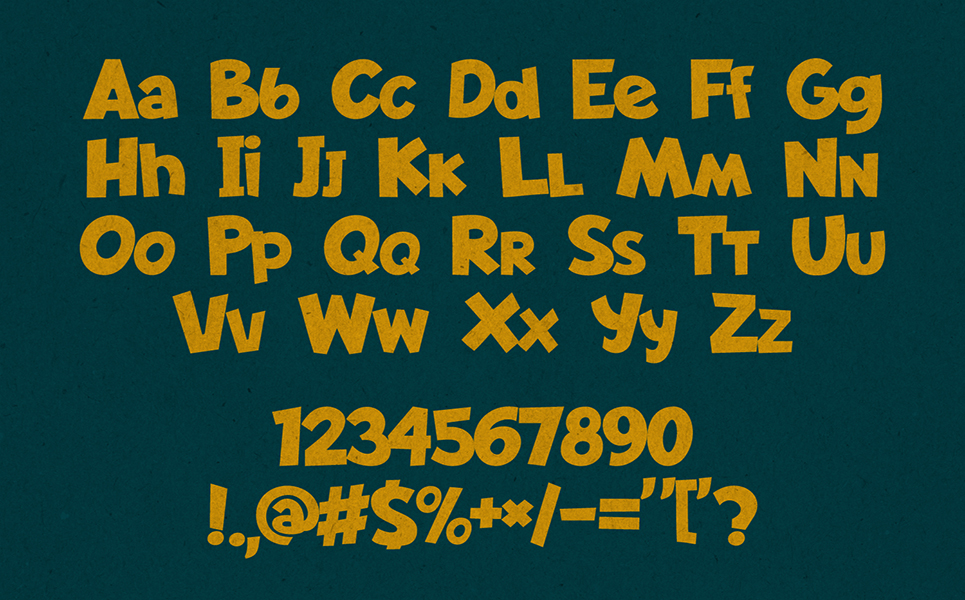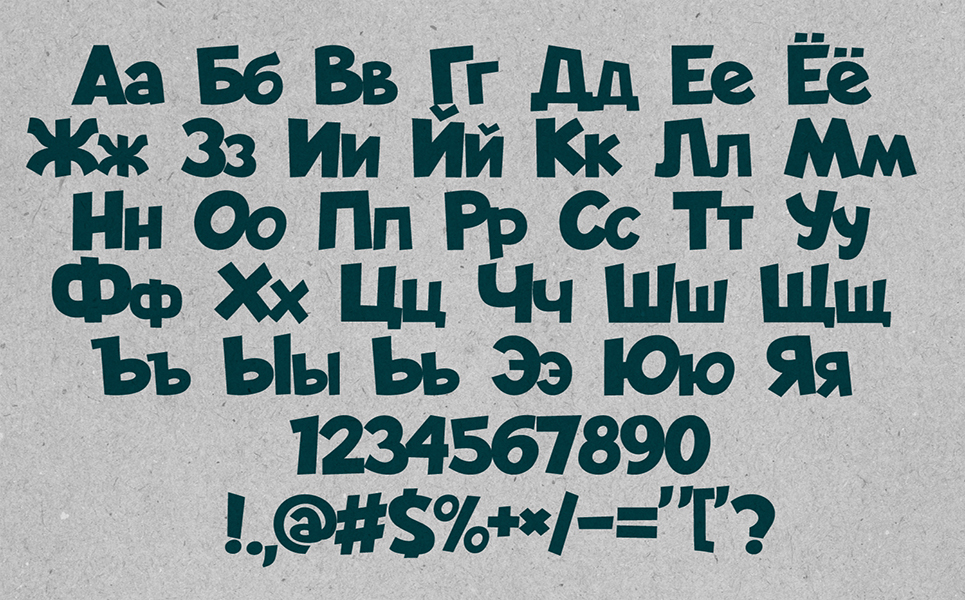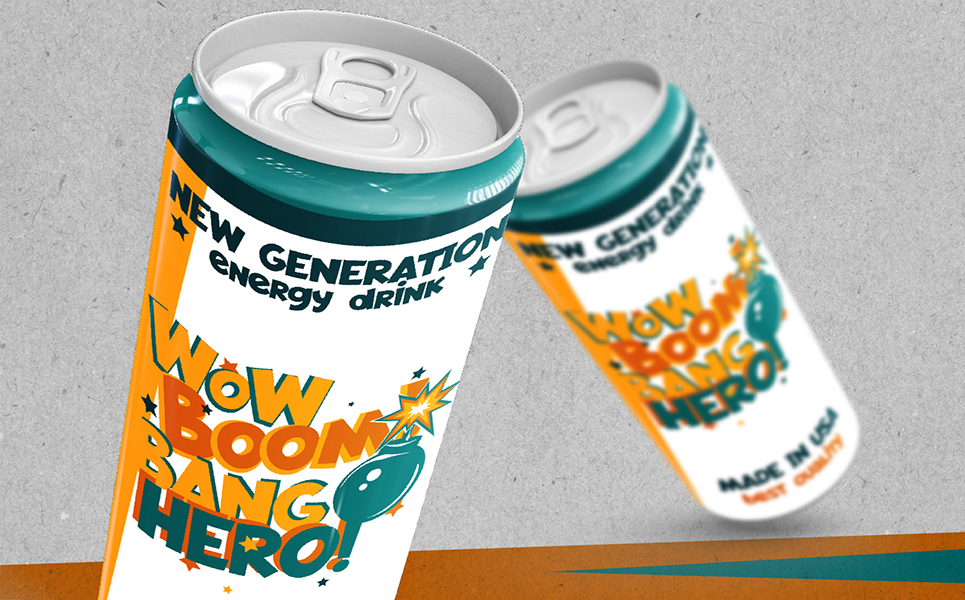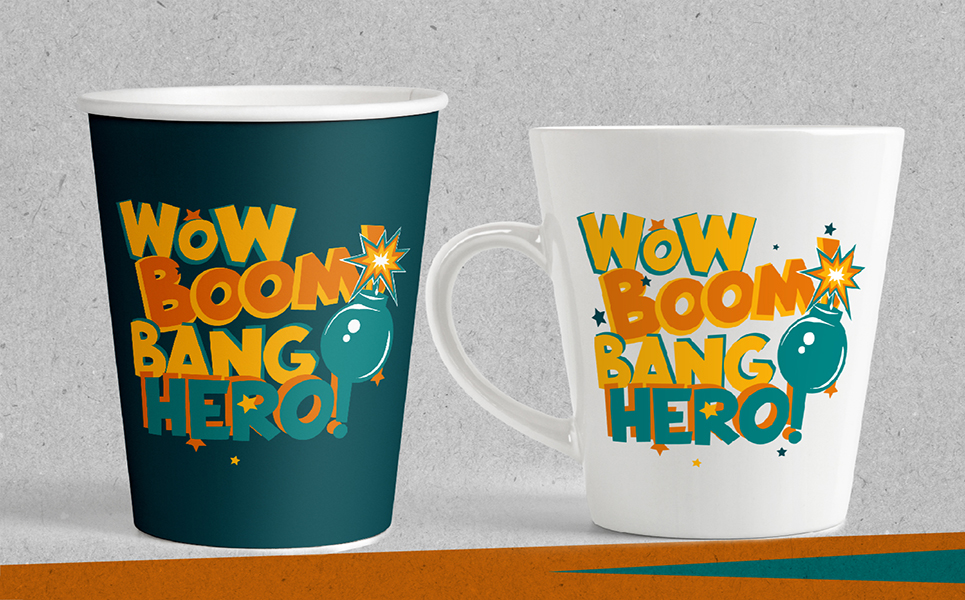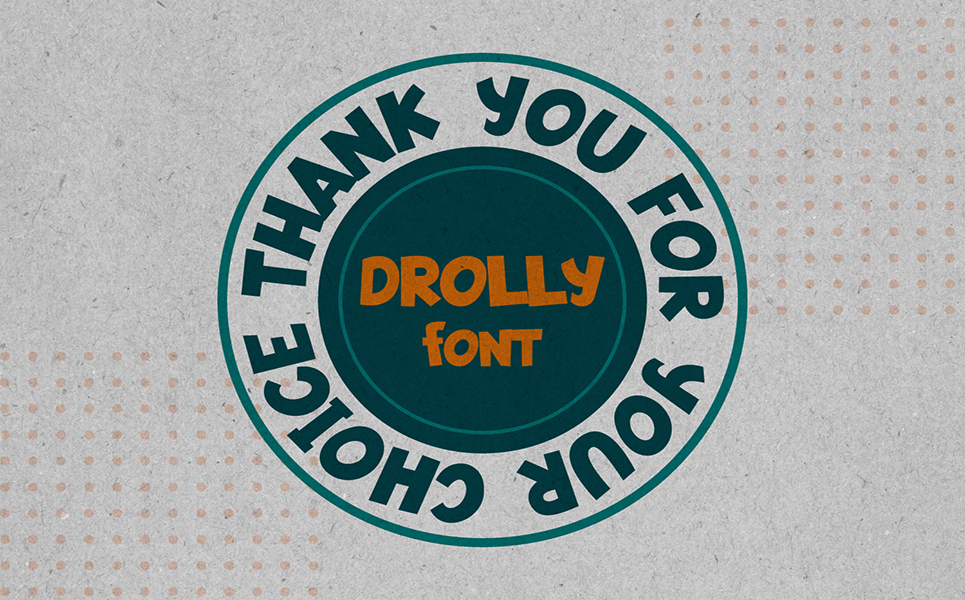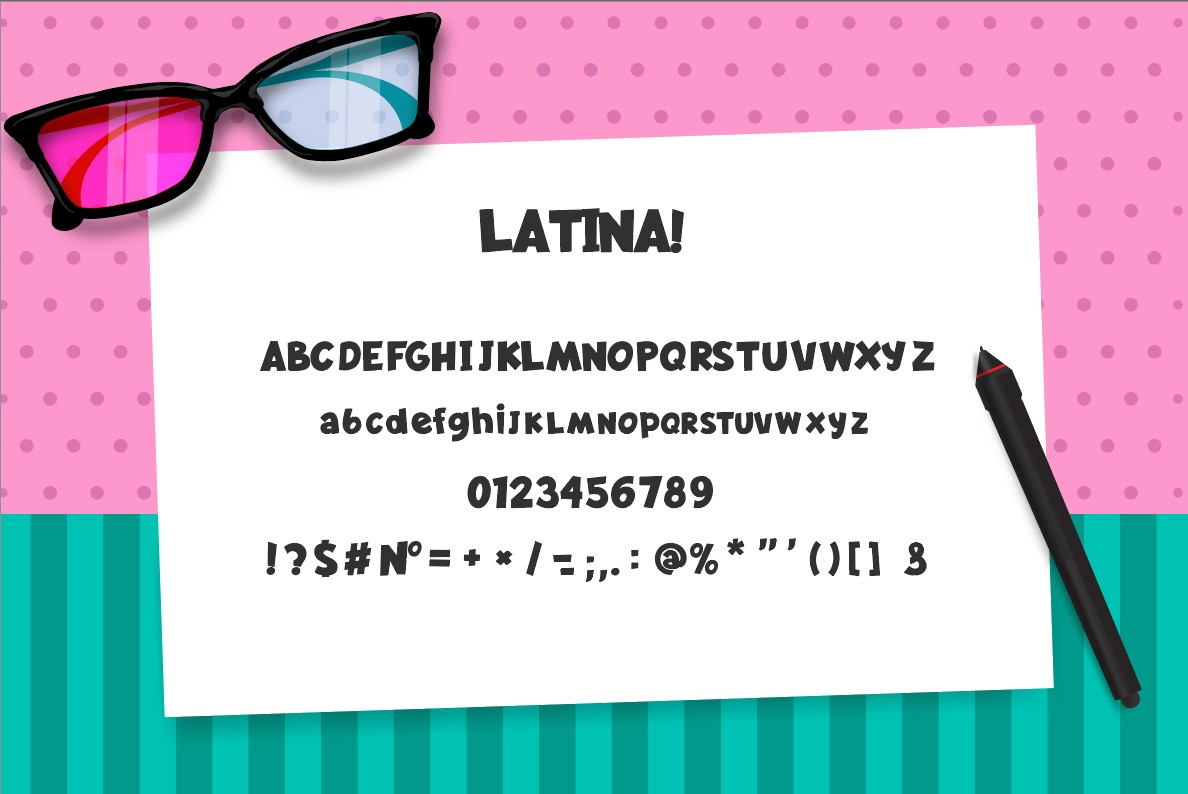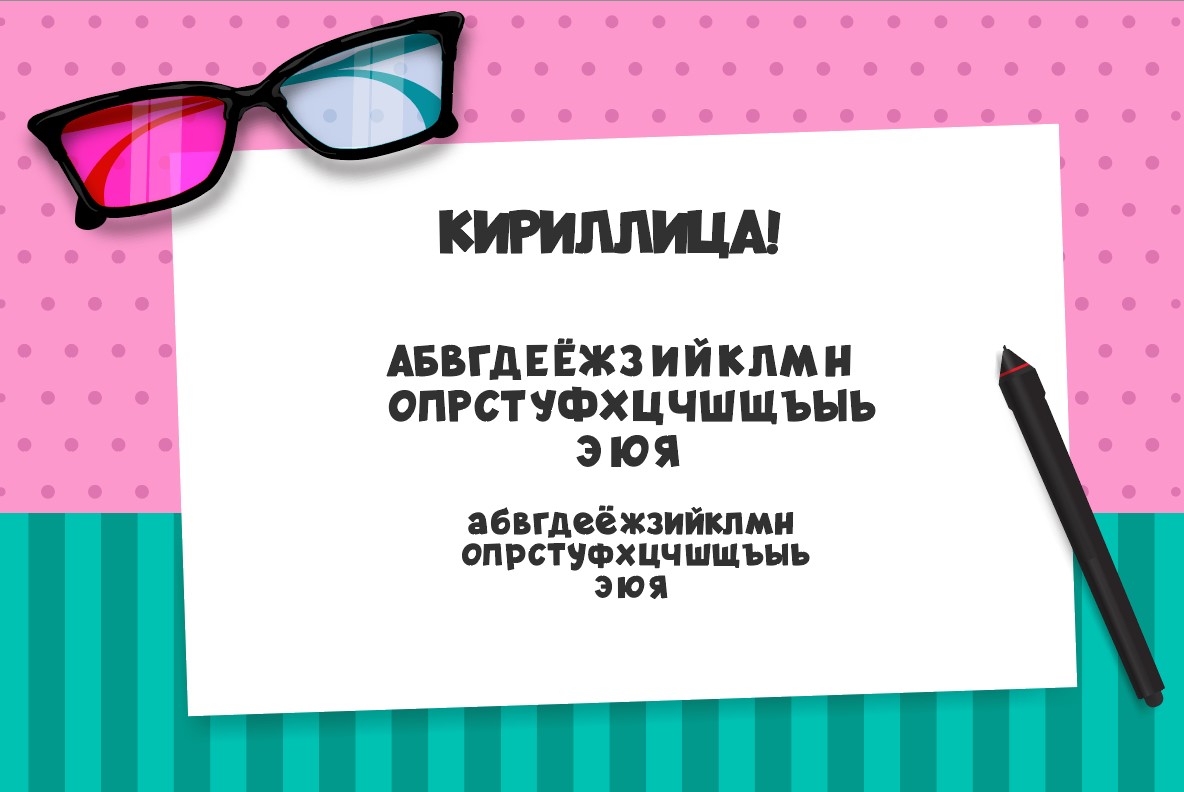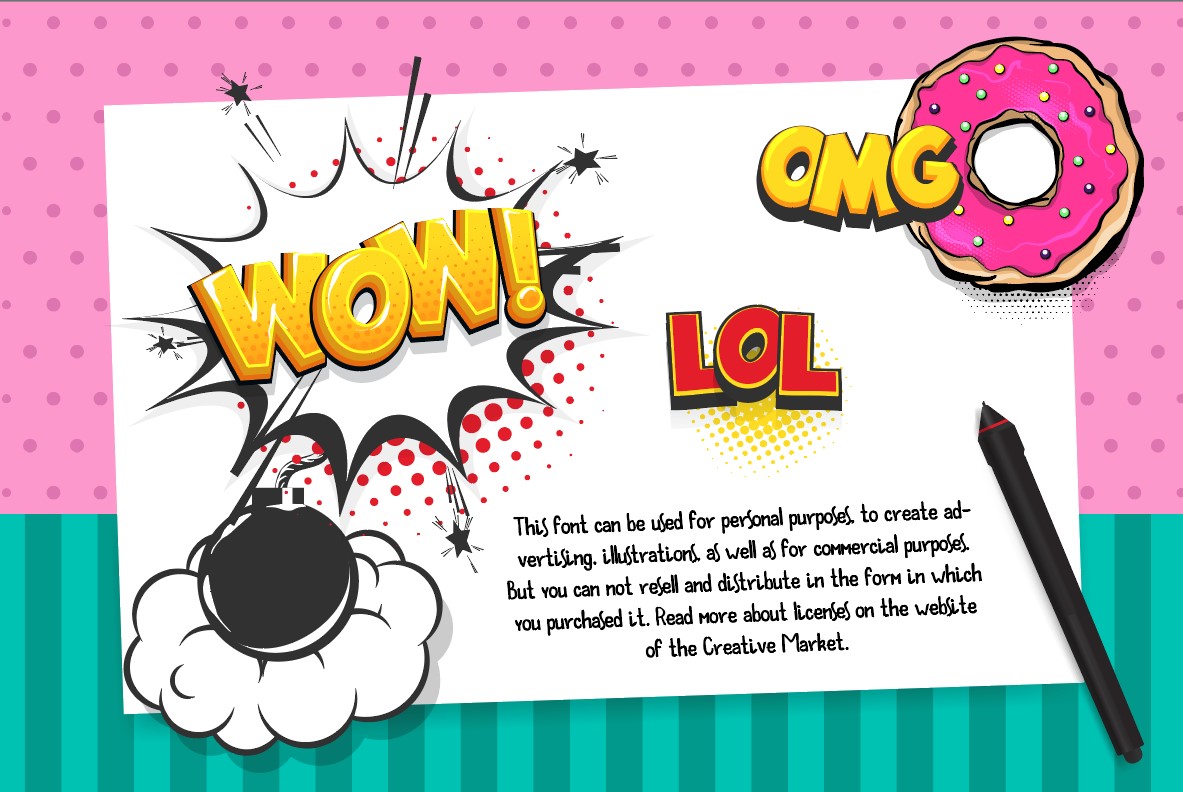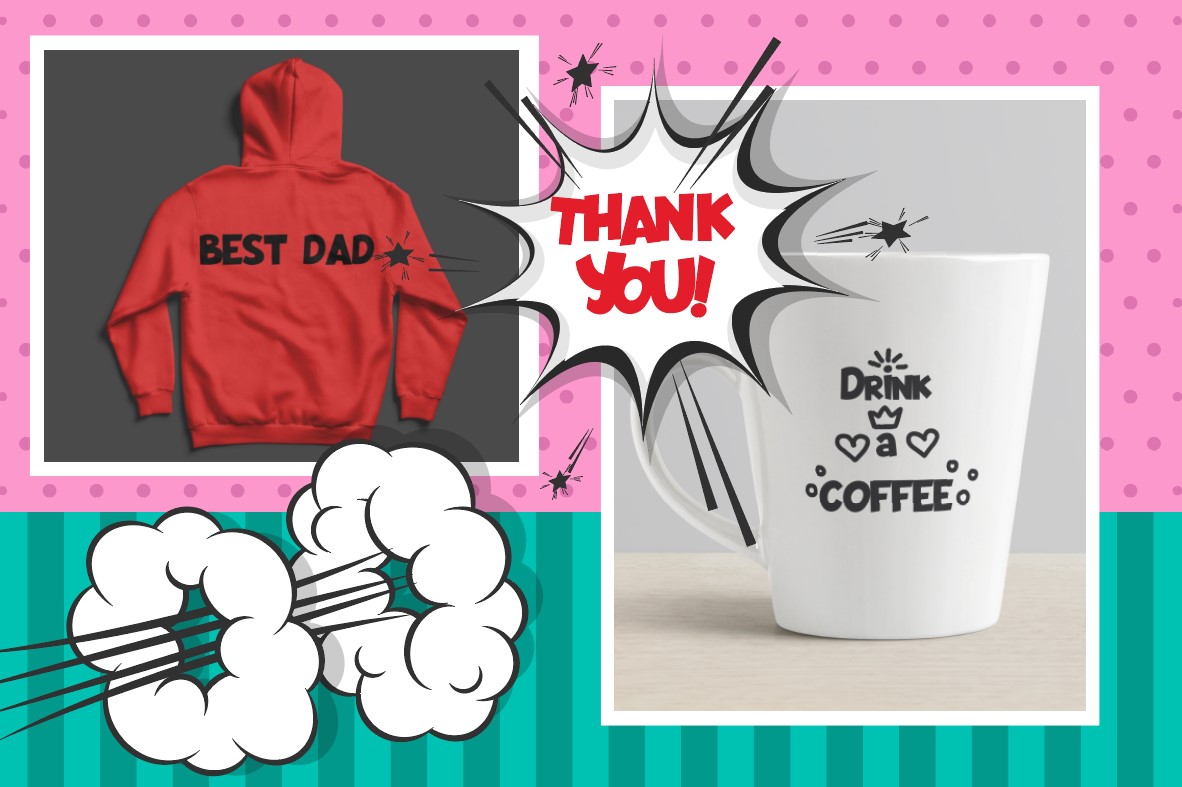
Drolly Comic Font
Cartoon comic book font "Drolly" in latin and cyrillic alphabets.
Decorate youth design:
- packaging design,
- handwritten cards,
- promo speech bubbles,
- advertise,
- greetings for various holidays.